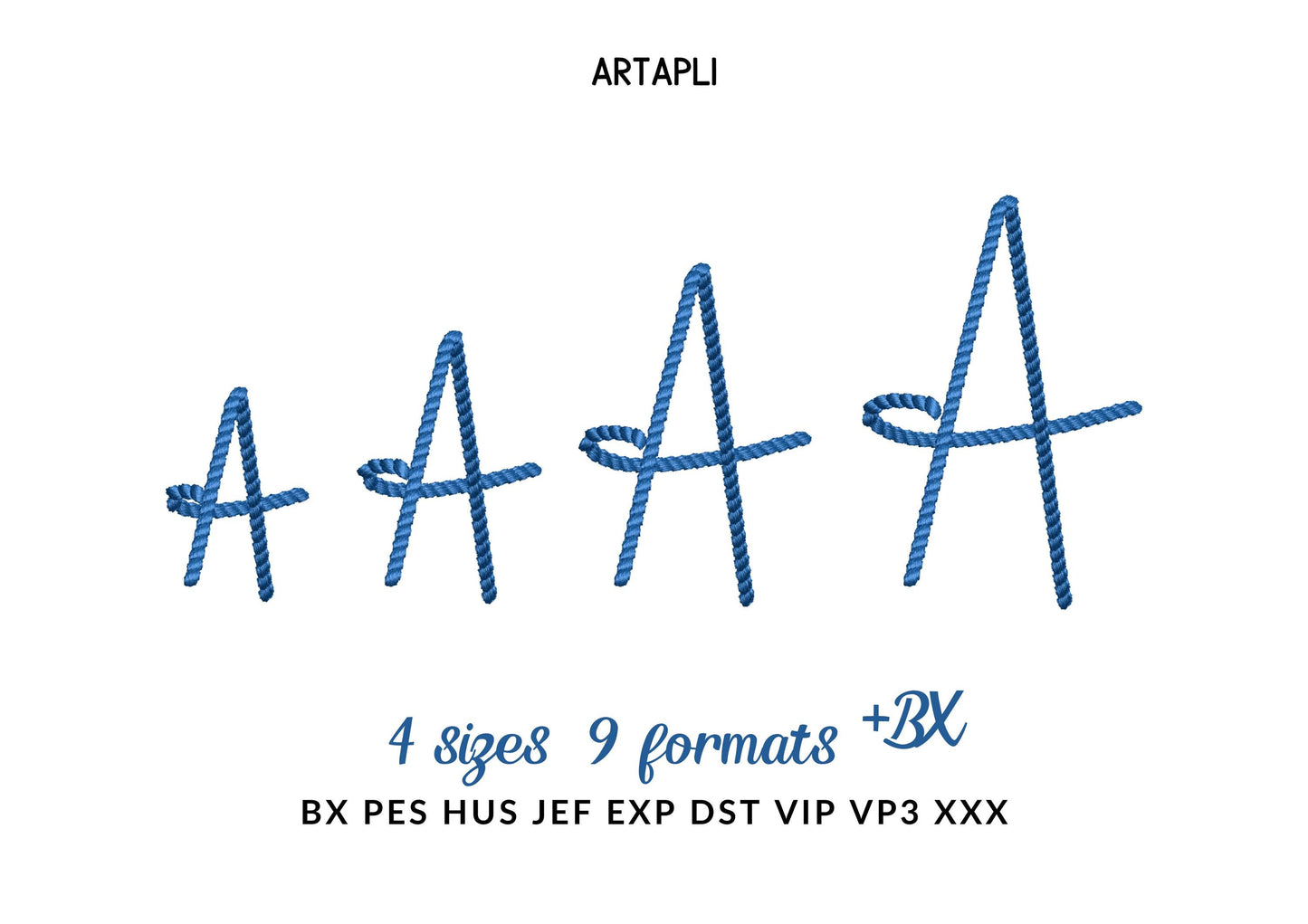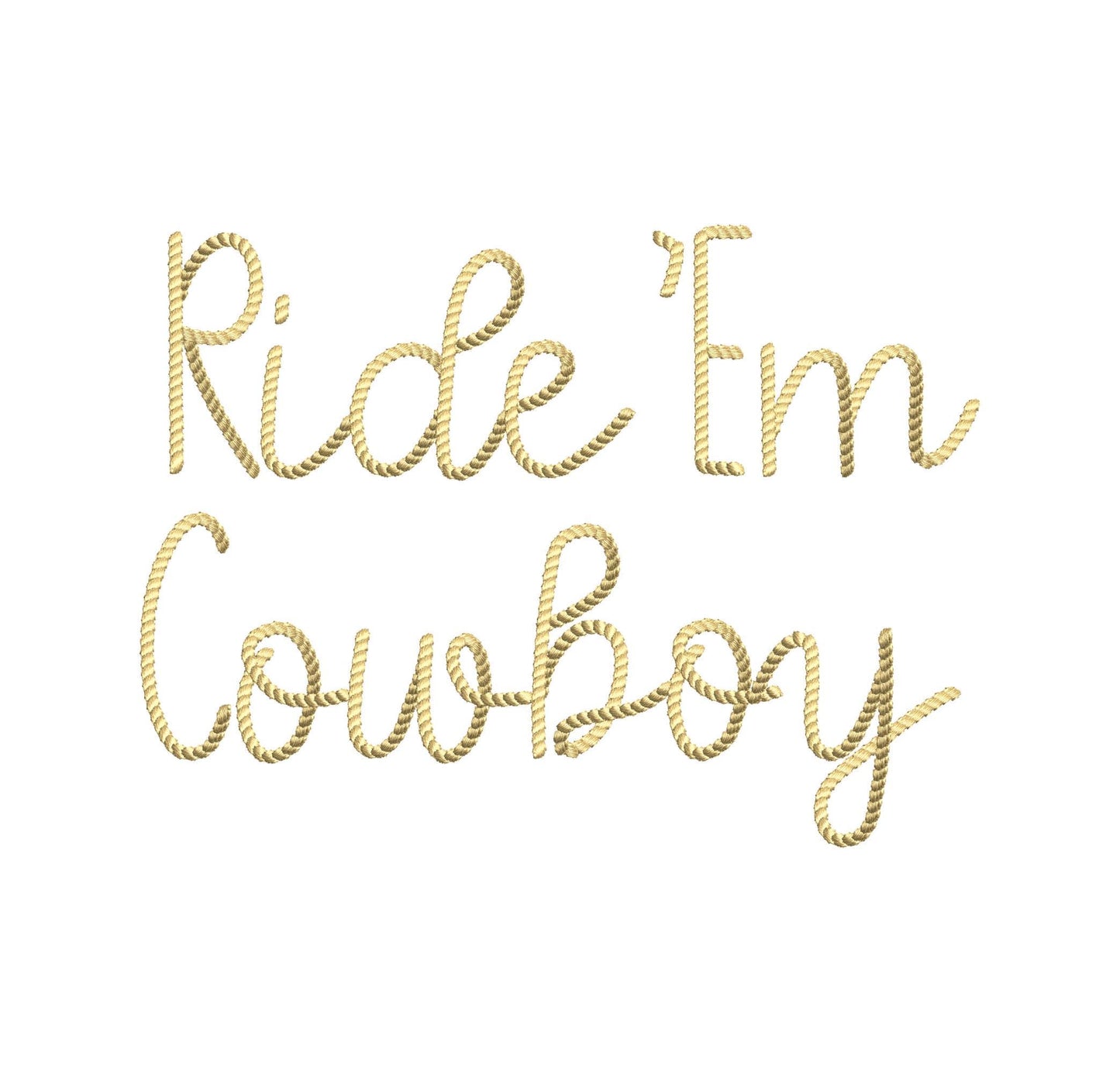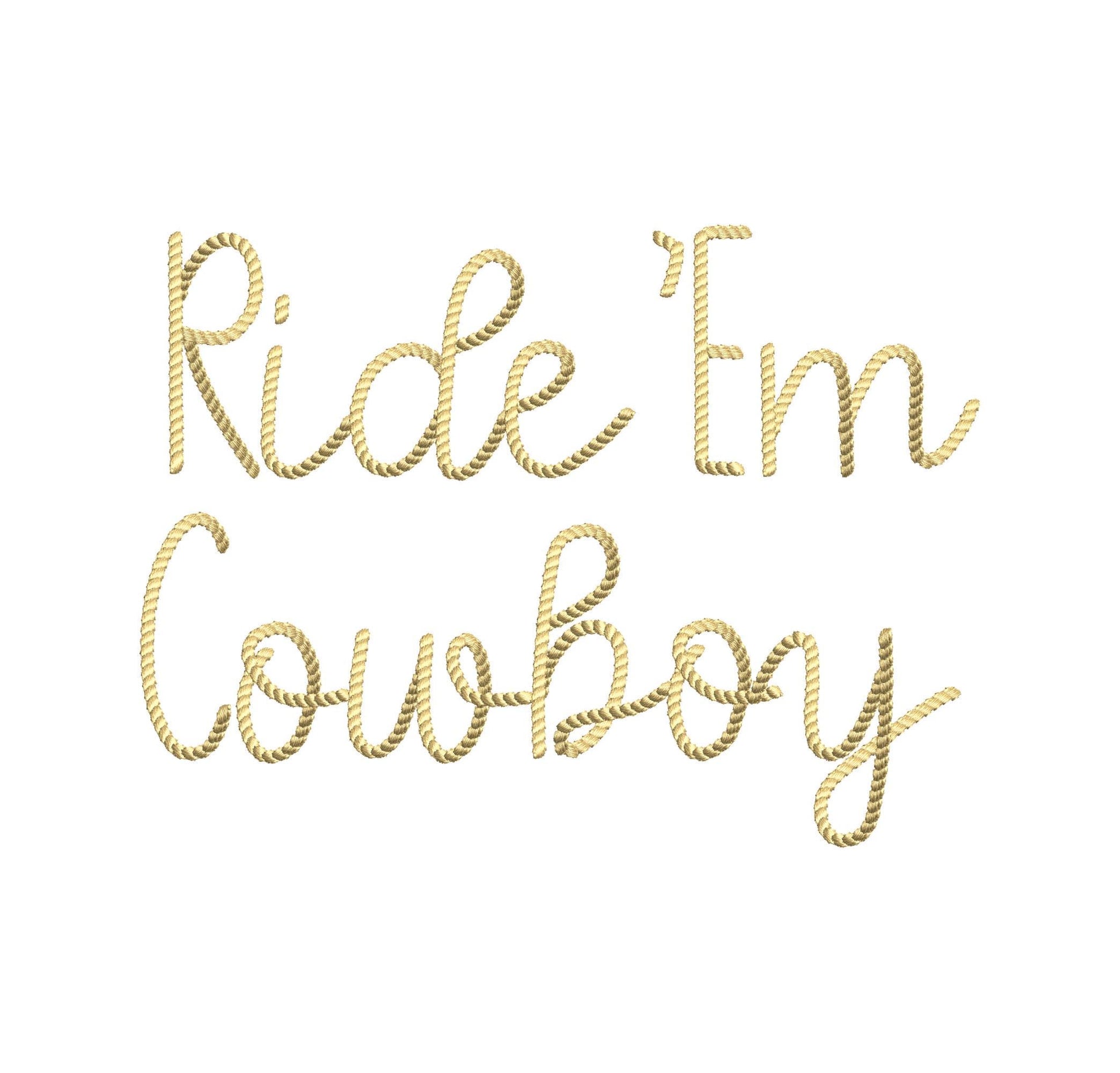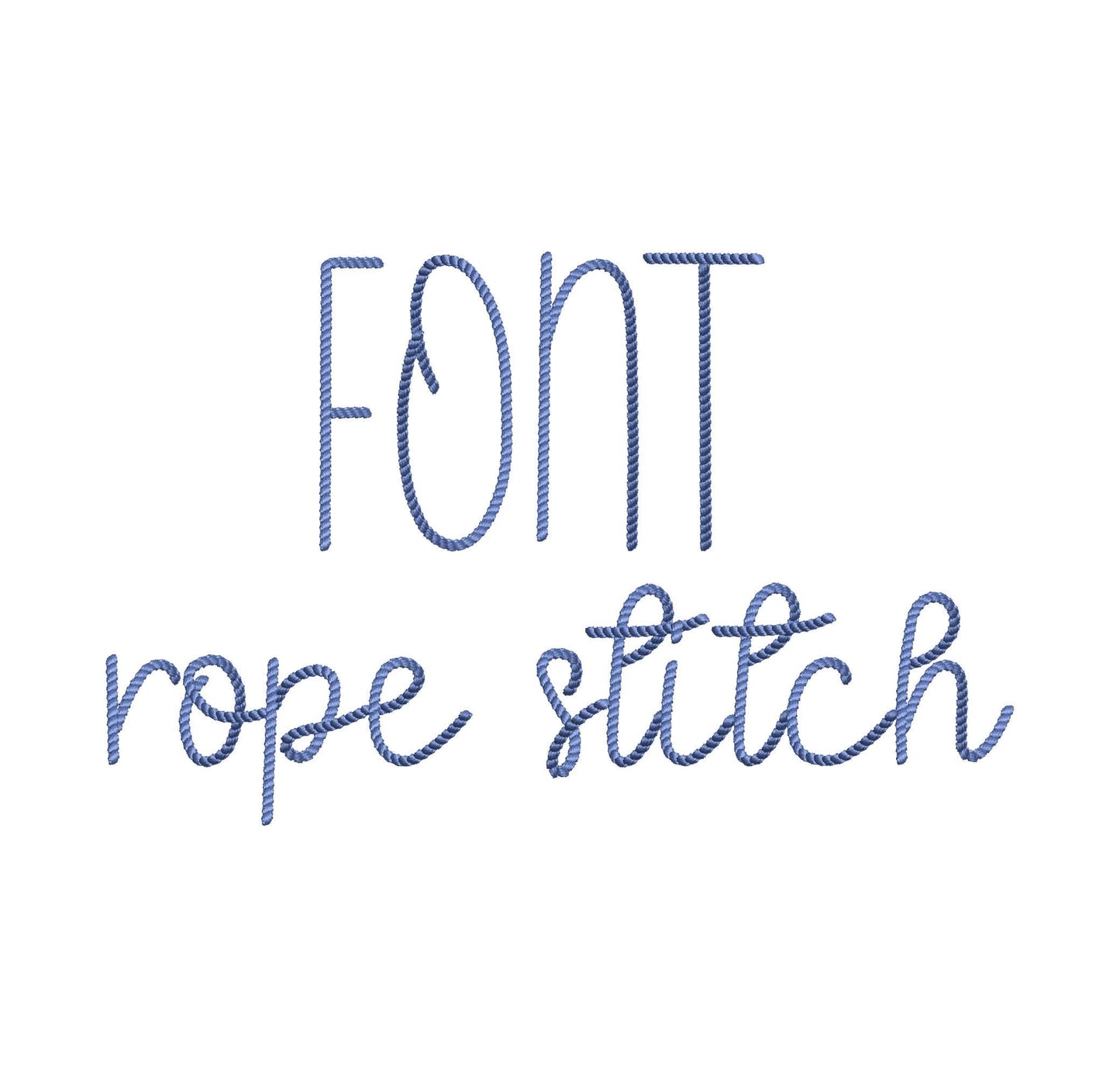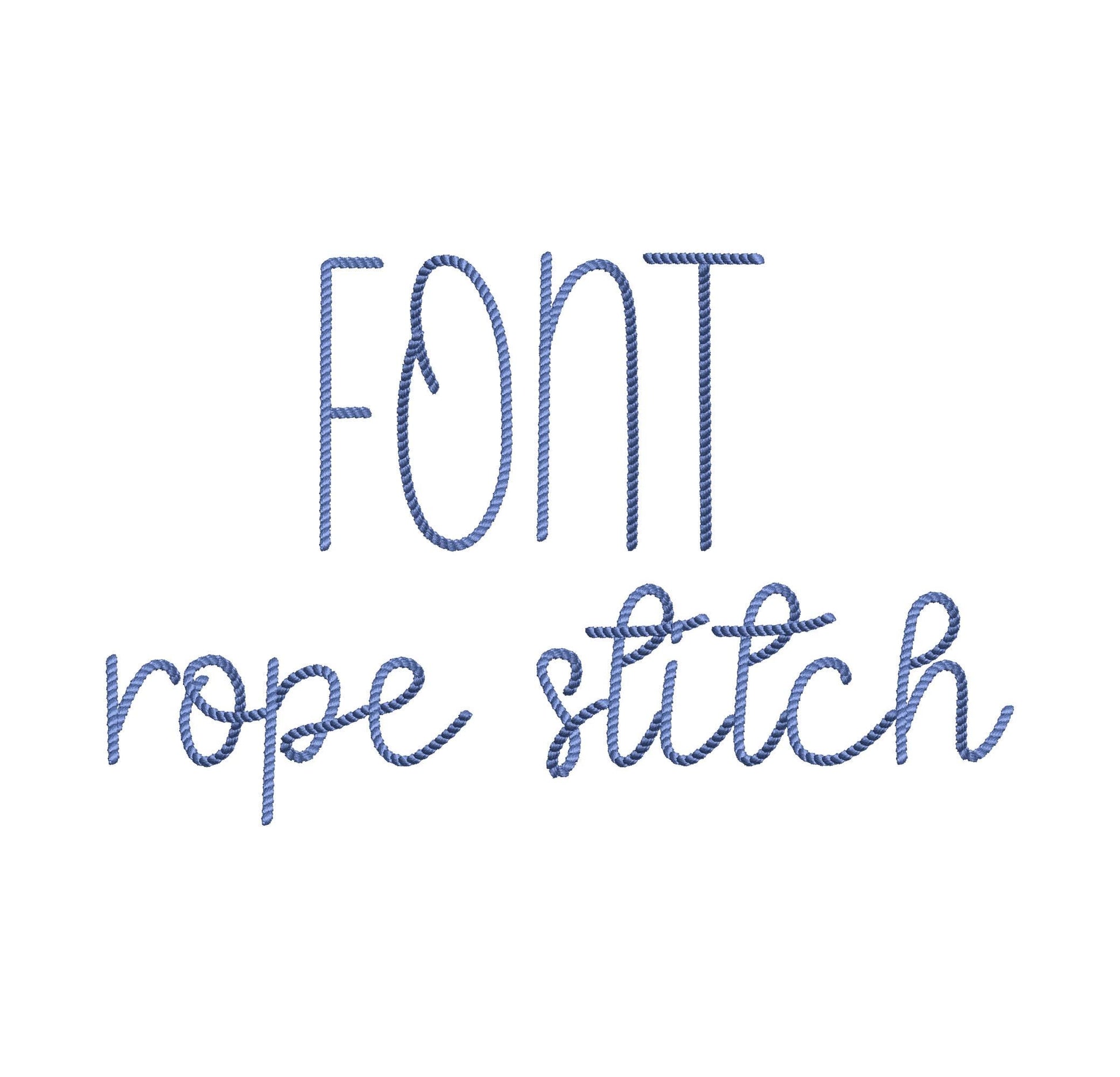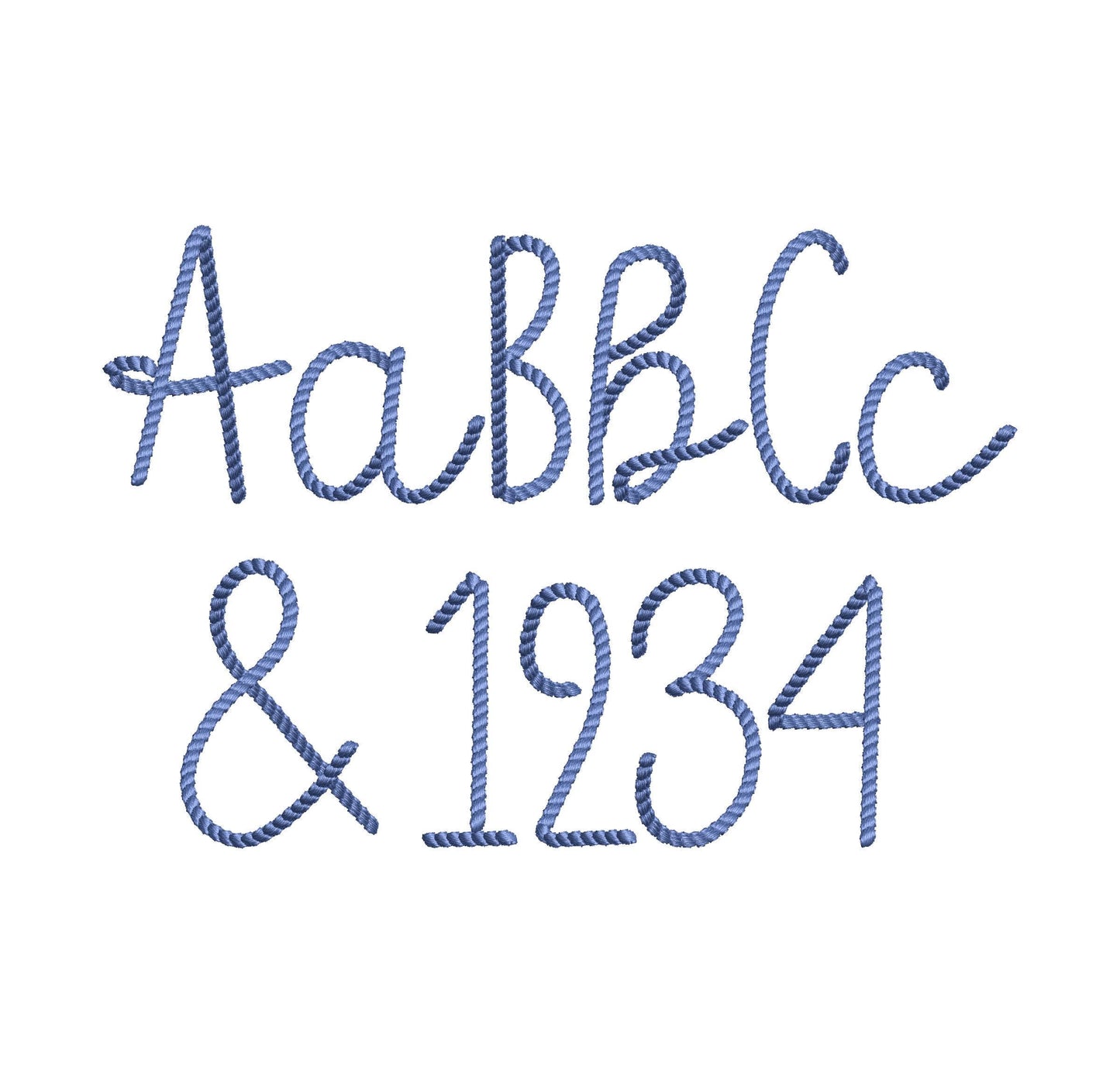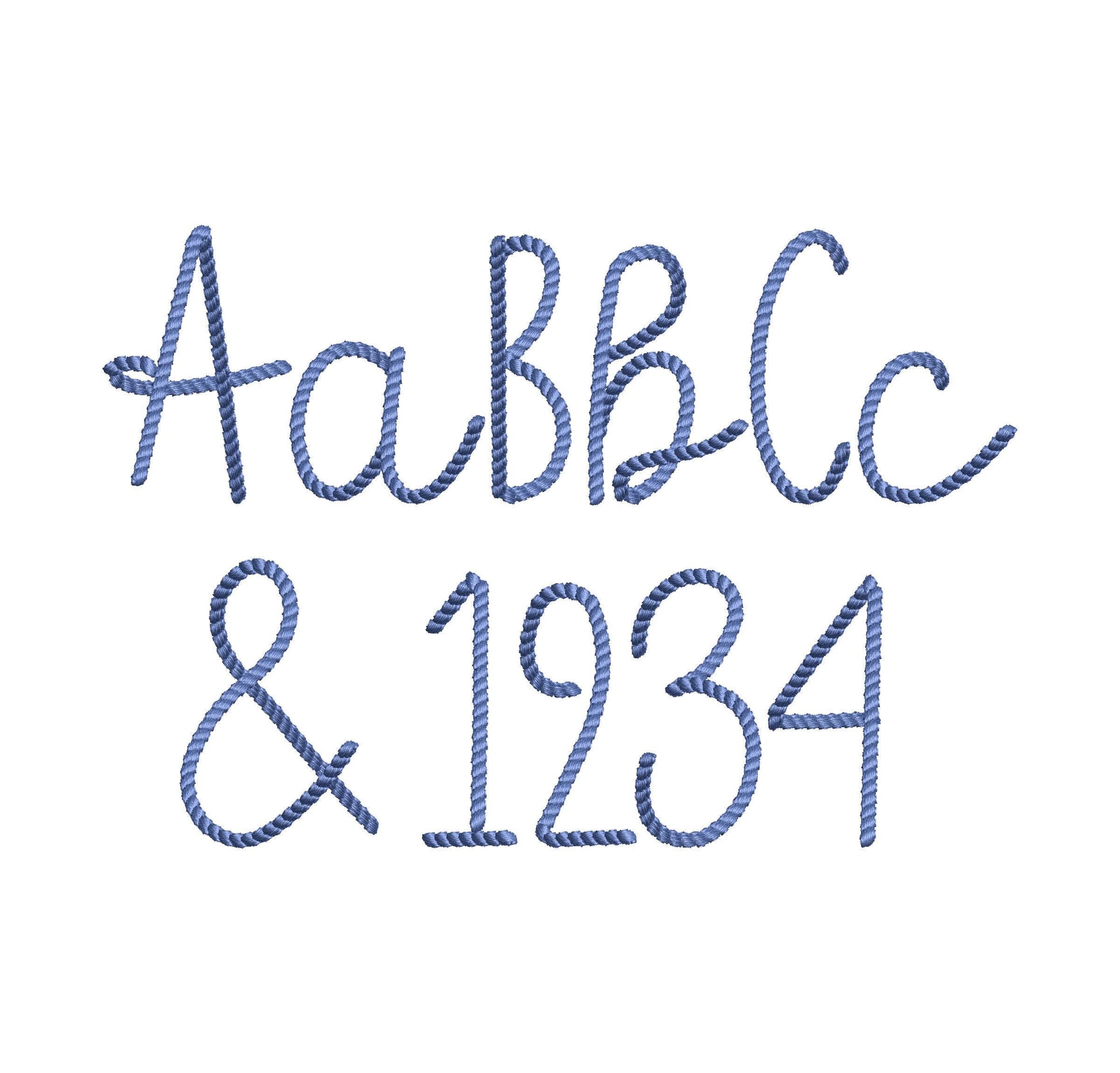
Mini Rope Stitch Font
Or click to open the linkA handwritten rope stitch font with a textured, cowboy feel. Great for western names, kids' shirts, jackets, bags and monograms.
Uppercase and lowercase letters, numbers 0 to 9 and punctuation, in one size: 2.5 inches.
- Rope stitch cowboy font
- Uppercase, lowercase, numbers 0 to 9, punctuation
- 1 size: 2.5 in